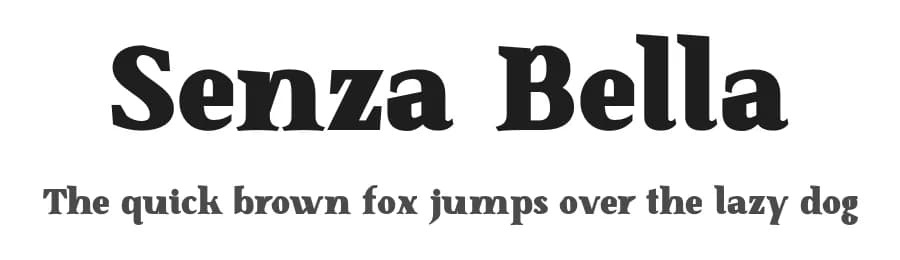
About Senza Bella Font
Senza Bella is a serif font designed by Ryan Williamson. It includes 180 glyphs, a black weight, OTF (CFF) format, and 197 languages. Senza Bella is free to download; check the license details on this page before commercial use. Serif fonts like Senza Bella work best for body text, editorial layouts, book covers, and classic branding.
- Heavy, Classic, Refined, Basic
Senza Bella supports 197 languages.
Senza Bella Font is a versatile serif font that works for both headings and body text. Pair it with a contrasting sans-serif or slab serif font to add visual interest and a clear distinction between titles and body copy.
Senza Bella Font
Senza Bella Font is a serif typeface by Ryan Williamson, ideal for logos, invitations, branding, and creative projects.